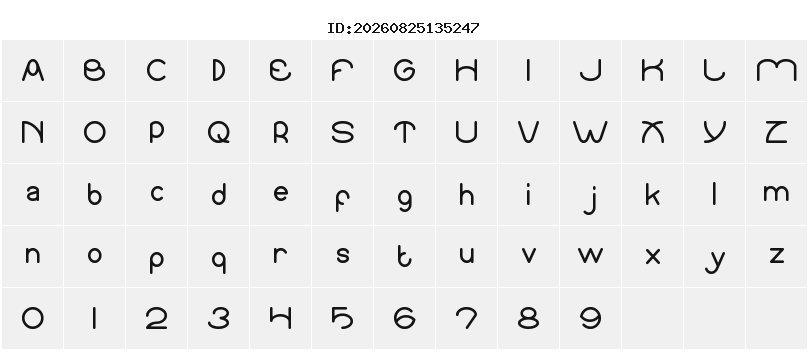
SUNDOWN sunrise Preview
• Font Name: SUNDOWN sunrise
• Full Font Name: SUNDOWN sunrise
About SUNDOWN sunrise.ttf
SUNDOWN sunrise.ttf is a modern, elegant sans-serif font designed for ultimate readability and visual harmony. Perfect for branding, headlines, web design, and print materials.